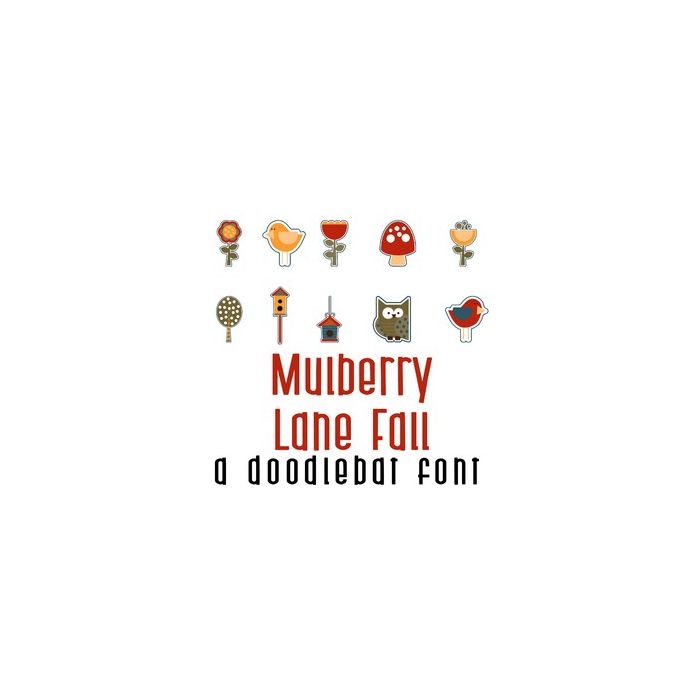
This adorable full-color doodlebat font features 26 fun fall images of birds, owls, trees and florals. Perfect for cards, crafts, gifts, decor, scrapbook pages, planner stickers, and more!